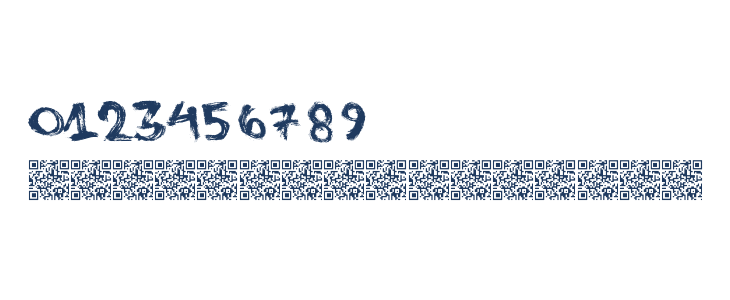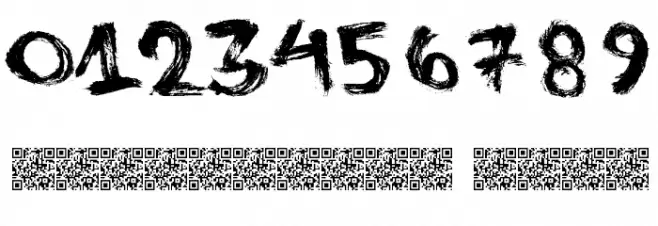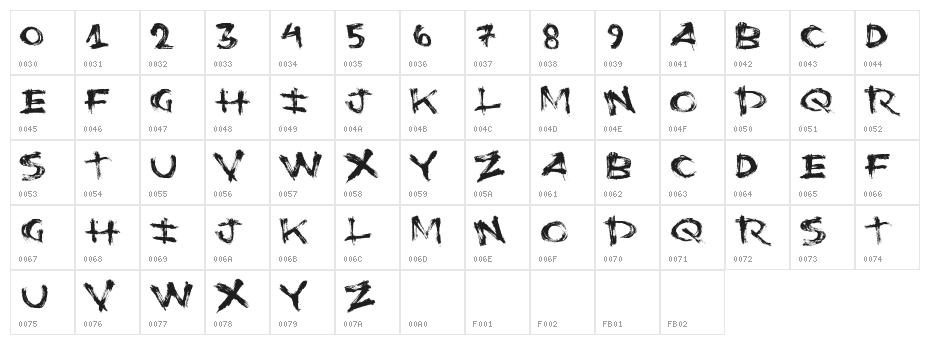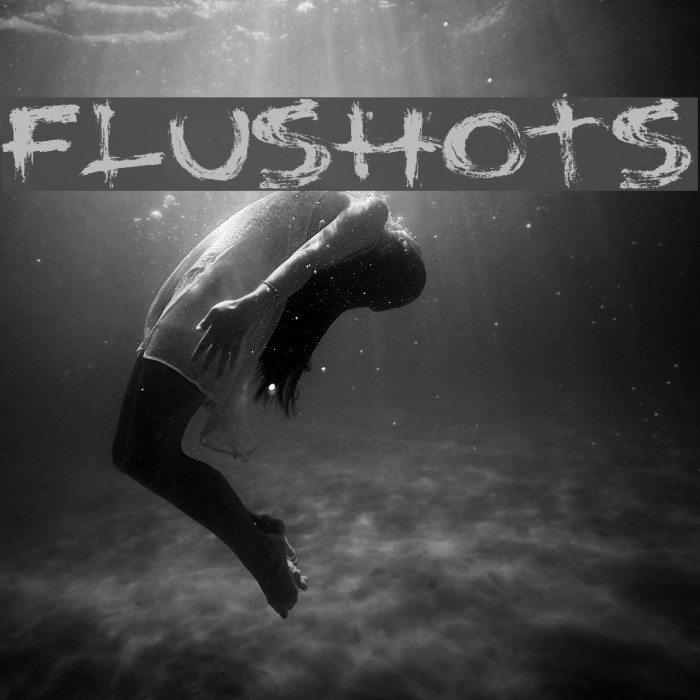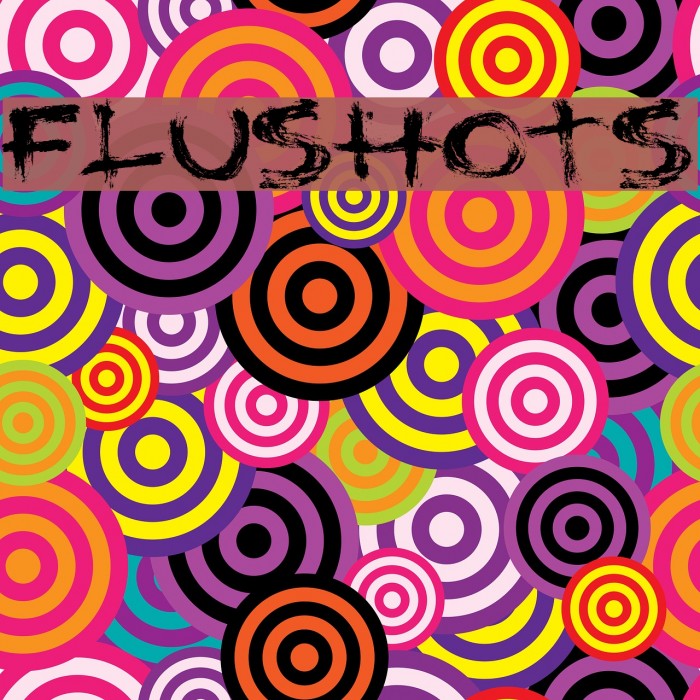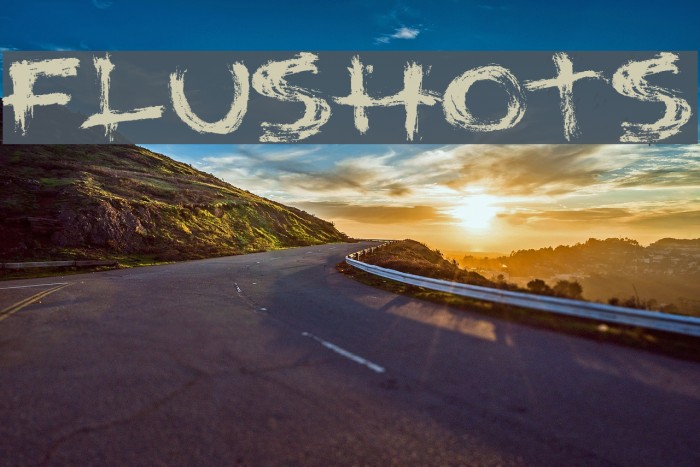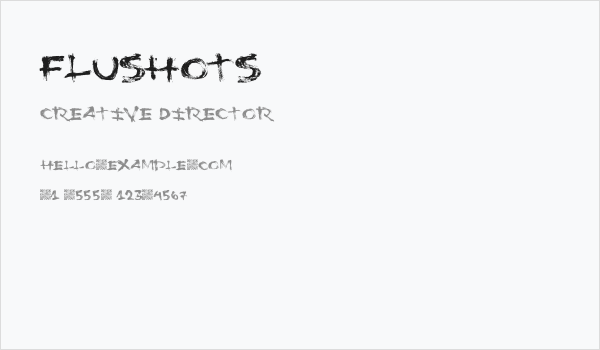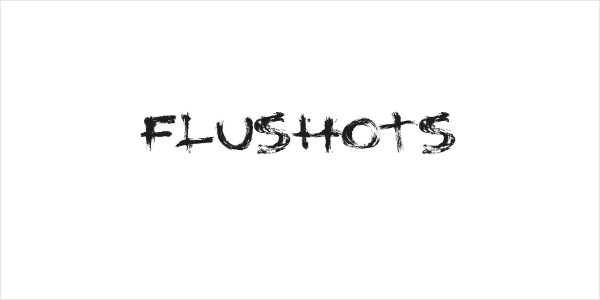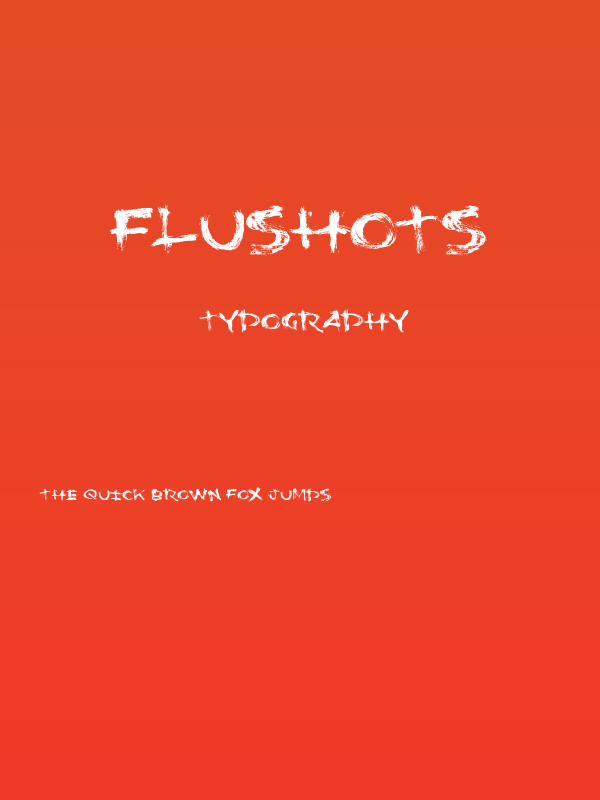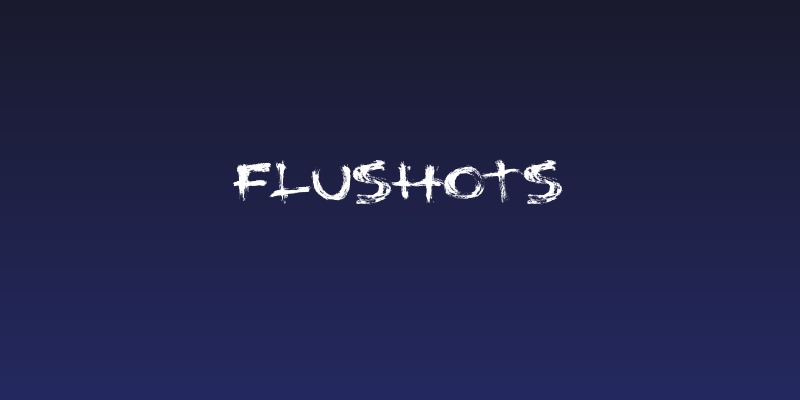
FluShots Font
FluShots Description
This font features a bold and expressive brushstroke style, characterized by its dynamic and energetic appearance. The letters are crafted with a rough, textured edge, giving them a raw and artistic feel. Each character appears as if it were painted with a thick brush, creating a sense of movement and spontaneity. The uppercase and lowercase letters maintain a consistent style, with varying widths and angles that add to the font's unique personality. Numbers and special characters follow the same aesthetic, ensuring a cohesive look across all elements.
FLUSHOTS UPPERCASE
FLUSHOTS LOWERCASE
FLUSHOTS OTHER CHARS
| Overall Style | Artistic, Expressive |
| Proposed Projects | Ideal for creative projects such as posters, album covers, and artistic branding materials. |